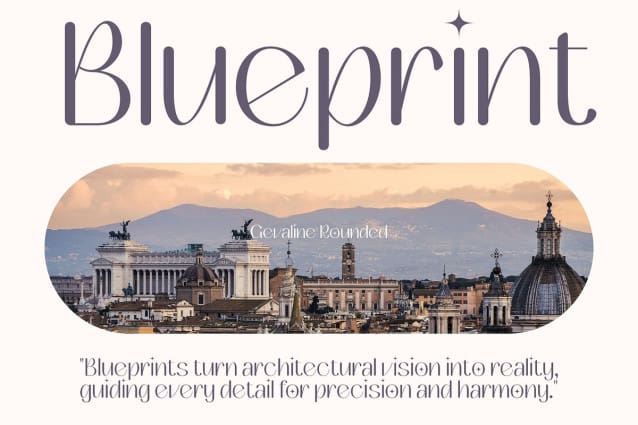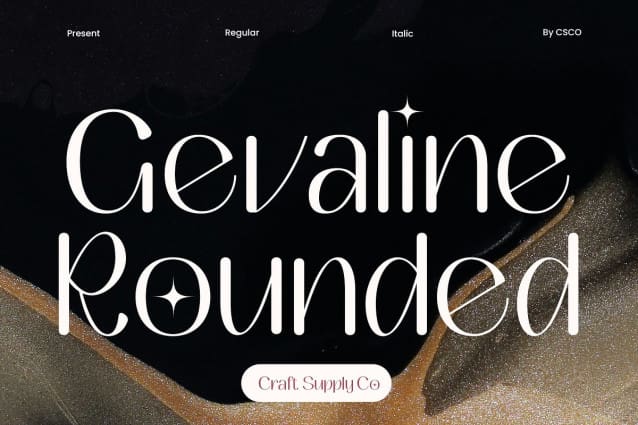
Gevaline Rounded Font
Gevaline Rounded is a modern sans-serif font that combines sleek, slim lines with smooth, rounded corners to create a clean and dynamic look. Its thin strokes lend a sense of lightness and sophistication, while the rounded edges soften the overall design, resulting in a warm, approachable appearance. This unique combination makes Gevaline Rounded perfect for high-end, professional applications.
Elegance and Professionalism with a Minimalist Touch The font’s slim design exudes elegance and refinement, making it ideal for projects that require a sophisticated yet minimalist touch. Whether used for luxury branding, editorial layouts, or marketing materials, Gevaline Rounded conveys a sense of professionalism and class, ensuring your designs stand out while maintaining a subtle, timeless appeal.
Versatile for Luxury and High-End Design Gevaline Rounded is perfect for applications where modern elegance is key. Its clean, sleek design makes it an excellent choice for branding, editorial content, and promotional materials that emphasize luxury and professionalism. Whether you’re designing a refined logo or creating an editorial spread, this font is versatile enough to elevate any project.
Sophisticated and Stylish with a Modern Twist Gevaline Rounded delivers both elegance and simplicity, making it perfect for projects that need a stylish yet understated appearance. Its minimalist design ensures high readability while adding a layer of sophistication to your work.